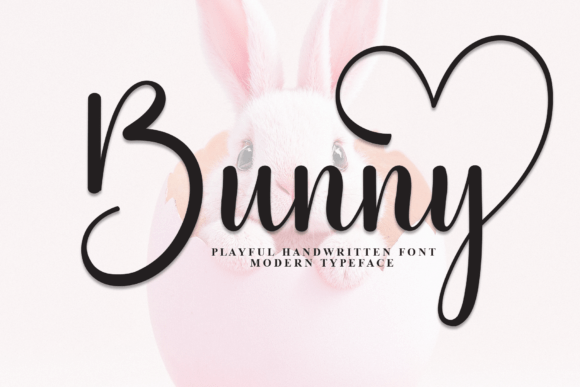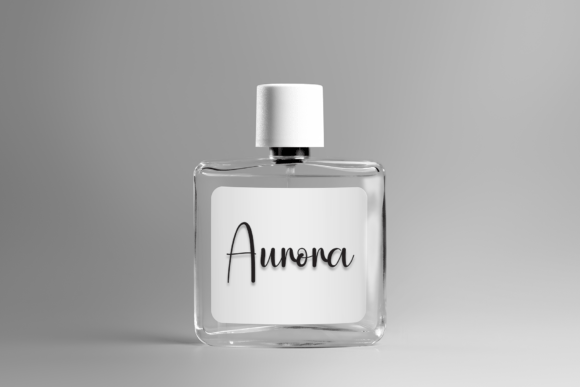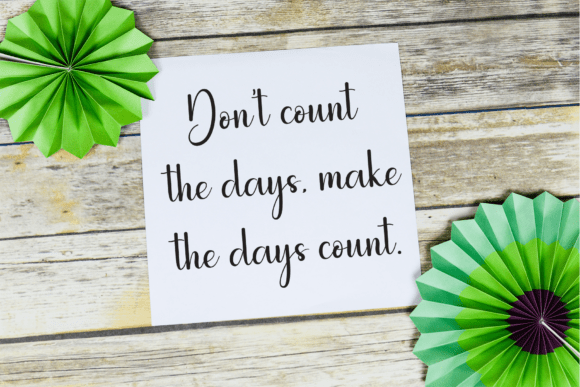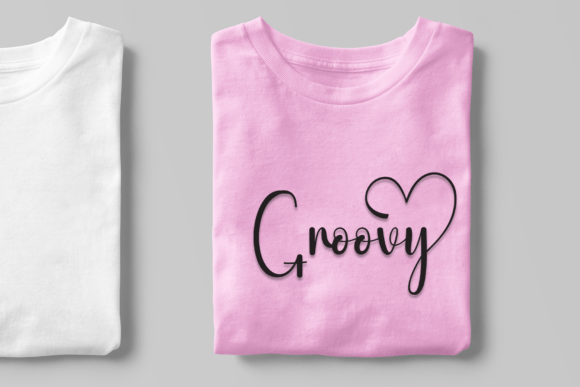
About the Bunny Font
Presenting Bunny Font, a unique and stylish typeface that will make your work stand out. Bunny is a stylish handwritten script font that exudes elegance and charm with its fluid, graceful strokes. Perfect for branding, invitations, and stationery, it adds a personal and sophisticated touch. The smooth curves and natural flow create a timeless, refined look for any design.